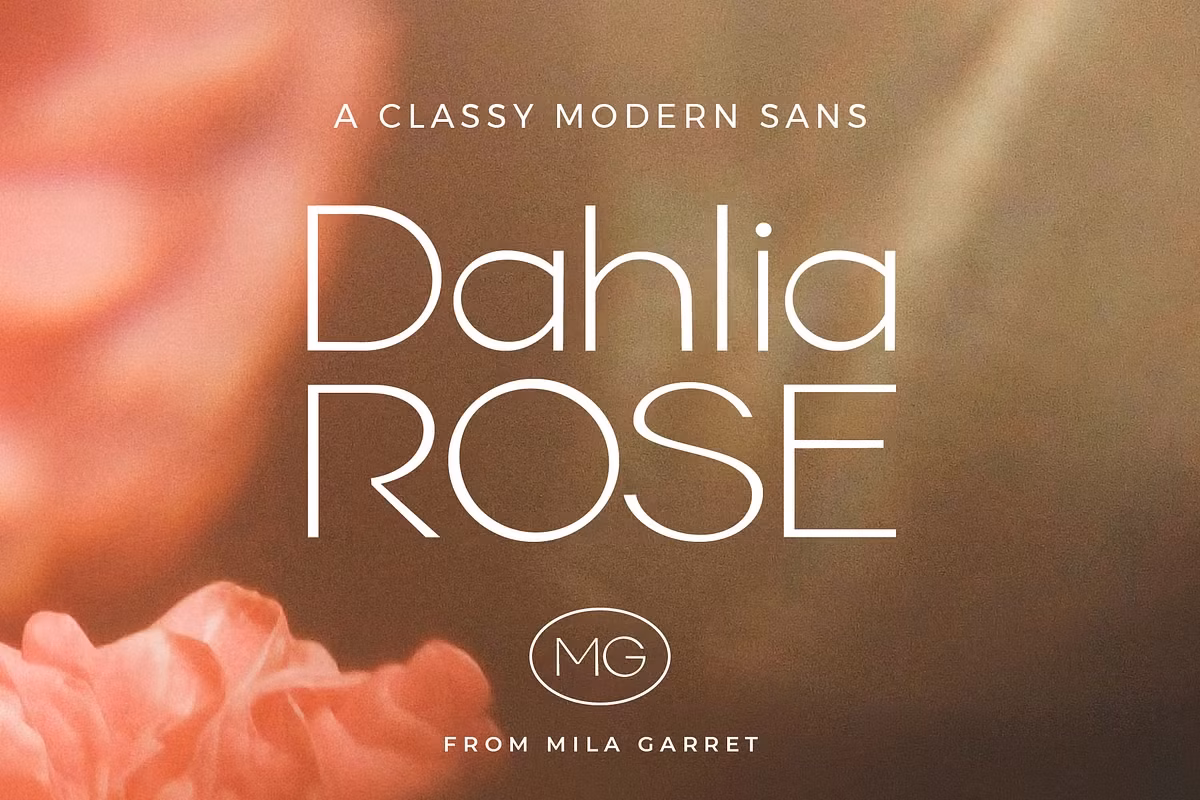
Dahlia Rose Modern Logo Sans Free Download is a sleek, contemporary sans-serif typeface designed specifically for modern logo designs and branding projects. With its clean lines, balanced structure, and minimalistic style, this font is perfect for creating professional logos, corporate branding, websites, and social media content. Its geometric design offers clarity and sophistication, making it ideal for both tech-focused and luxury brands. Whether you’re designing a corporate identity, working on a website, or developing marketing materials, Dahlia Rose Modern Logo Sans Free Download allows you to experiment with its stylish design in personal projects before purchasing a commercial license. Add modern elegance and readability to your designs with this beautifully crafted sans-serif font.